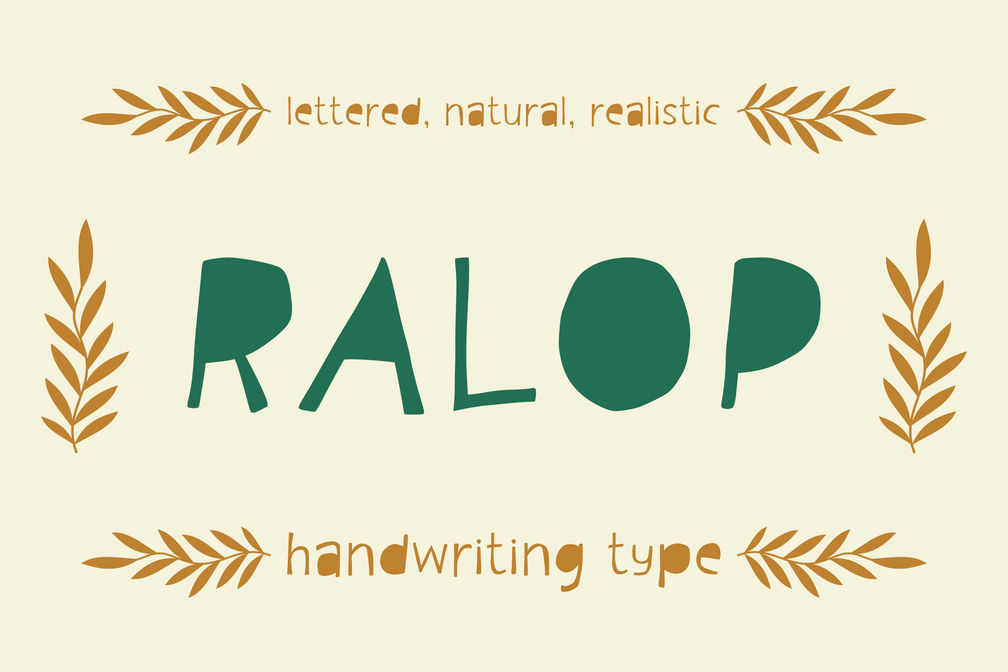
Ralop Handwriting Font
Unique lettering font with pen ink, with a touch and a children’s theme that will give a cheerful and happy impression to your designs. Suitable for logo design, packaging, product labels, content titles, text in video content, and more.